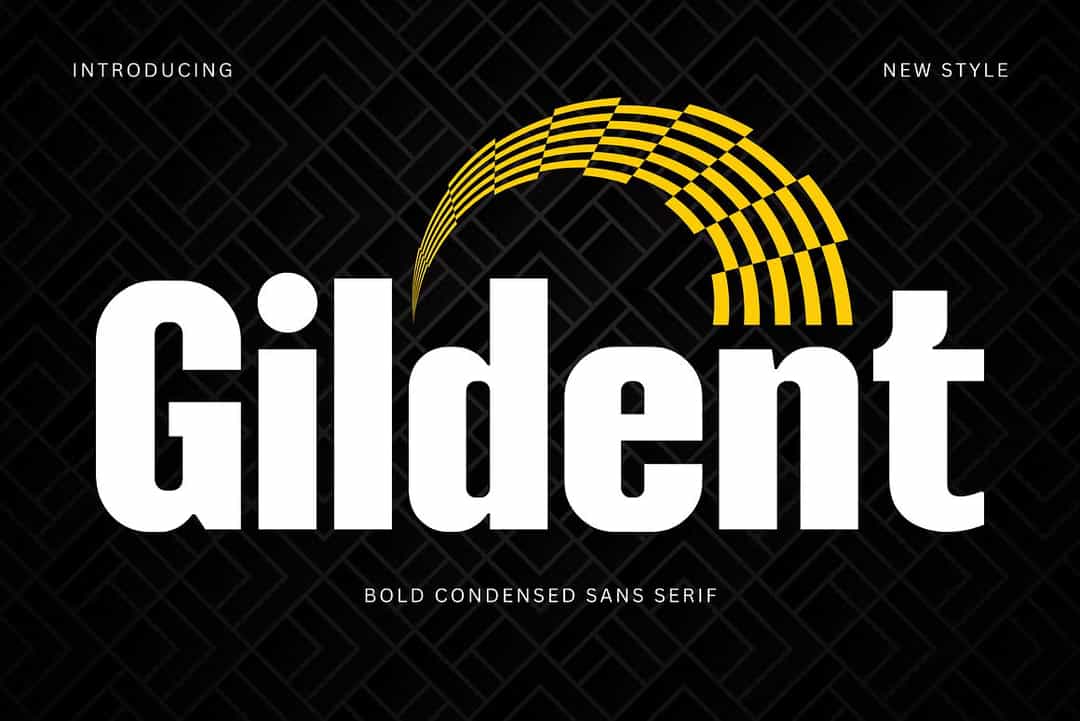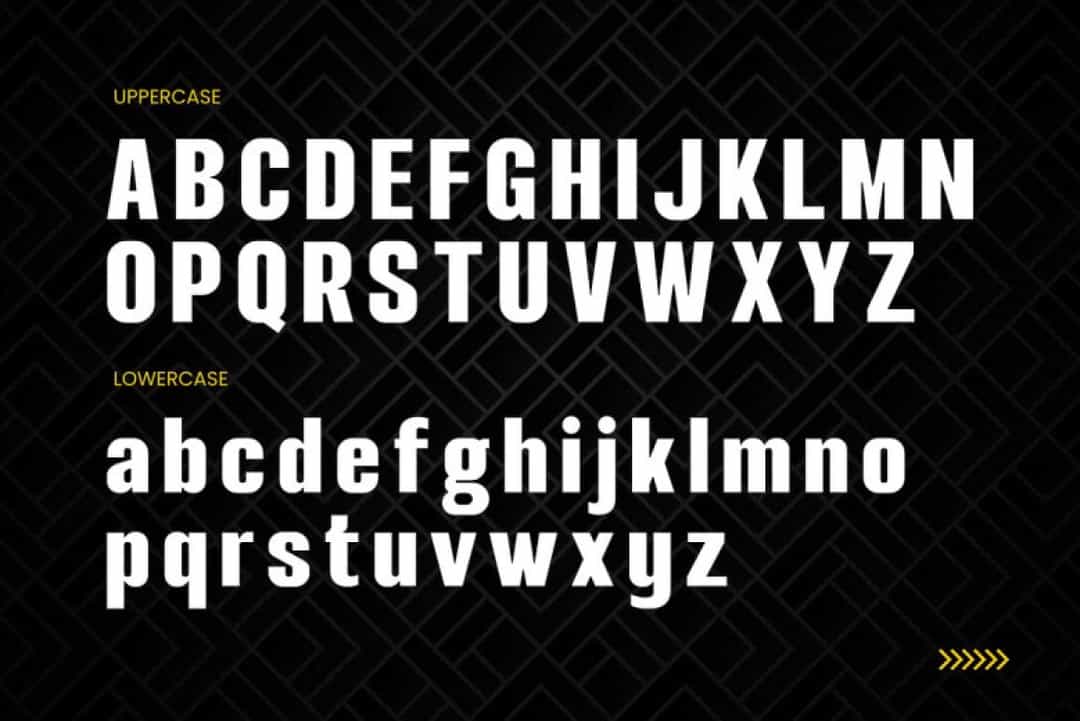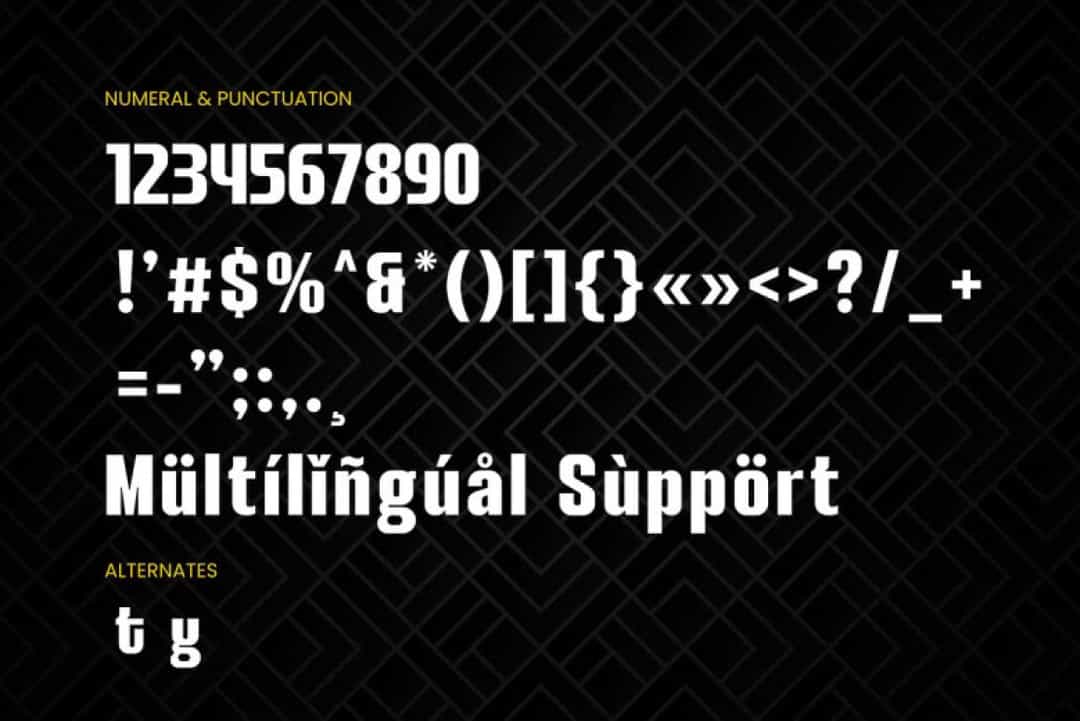
“Gildent,” a bold condensed sans serif font that draws the eye with its impressive design, draws in with its contemporary aesthetic. Boasting sleek lines and slim shapes, “Gildent” exudes confidence and contemporary chicness.